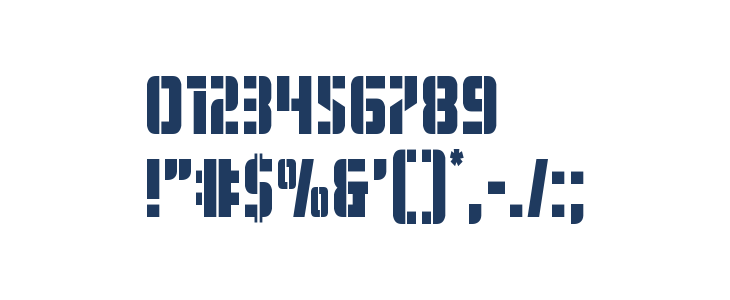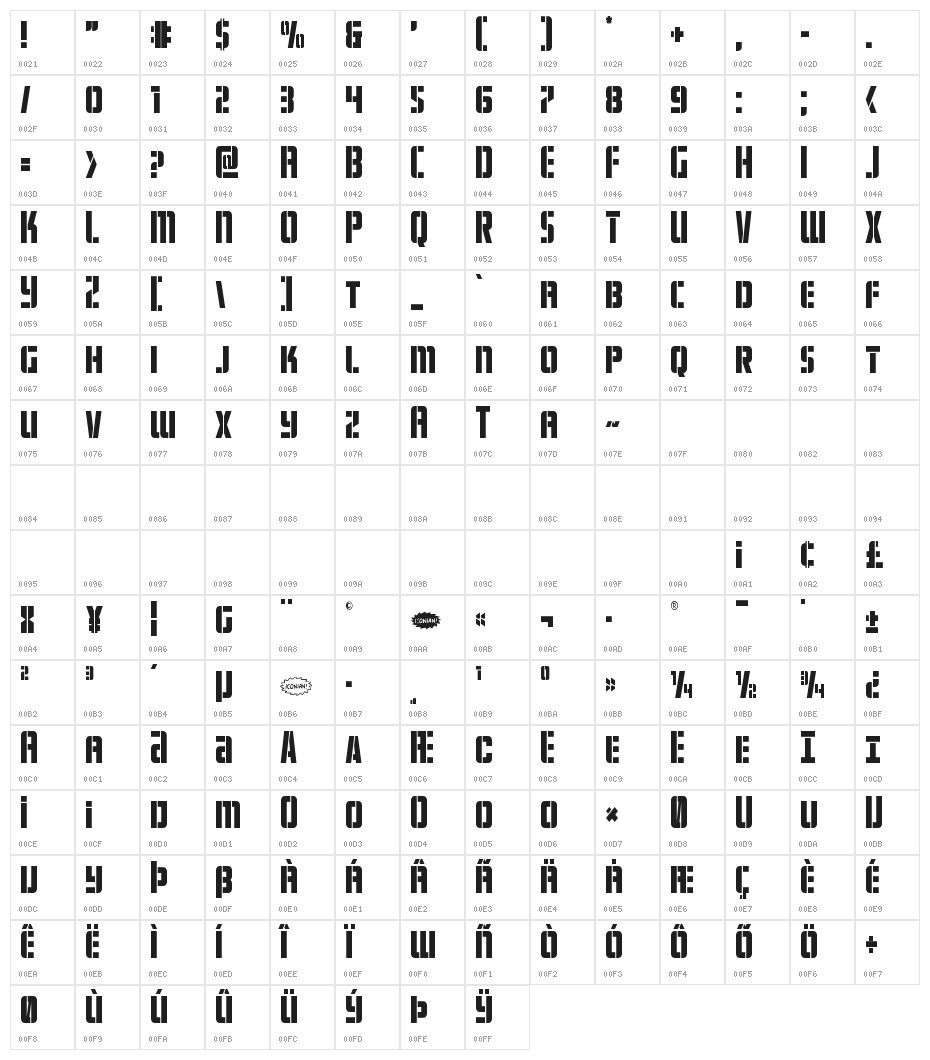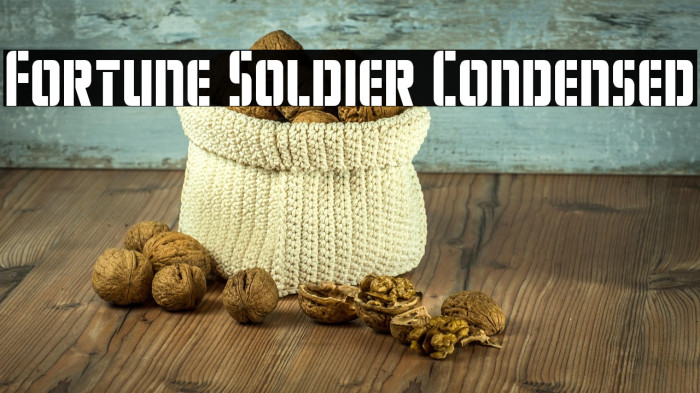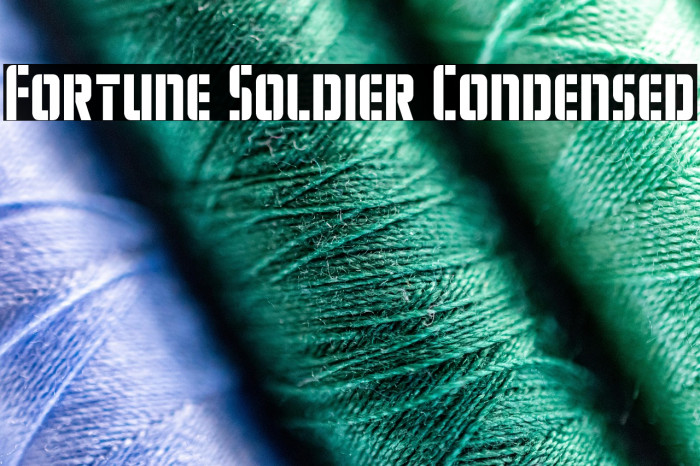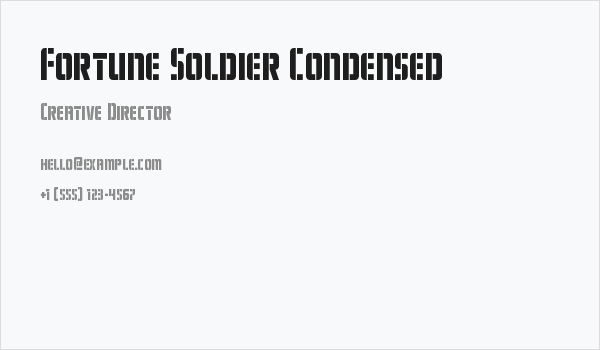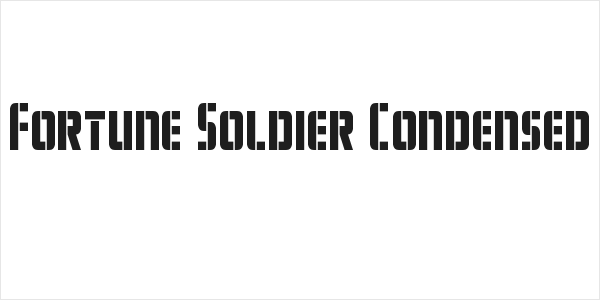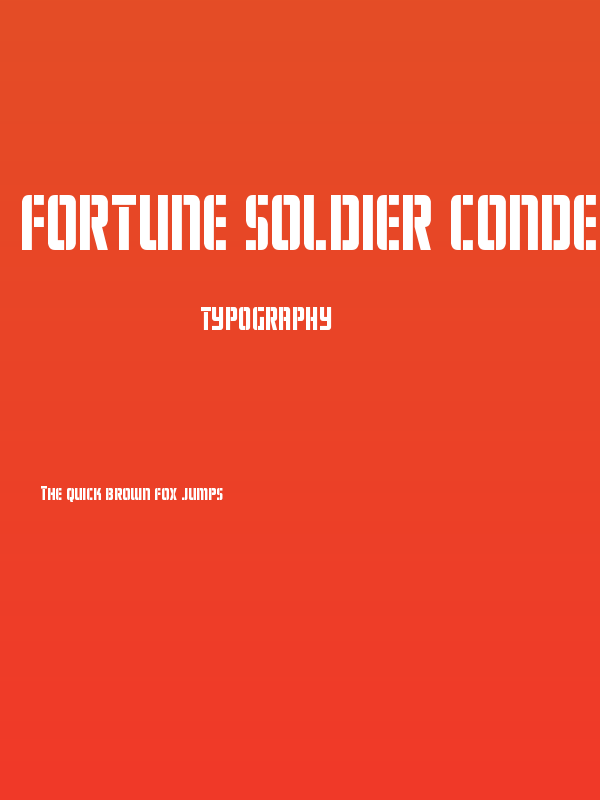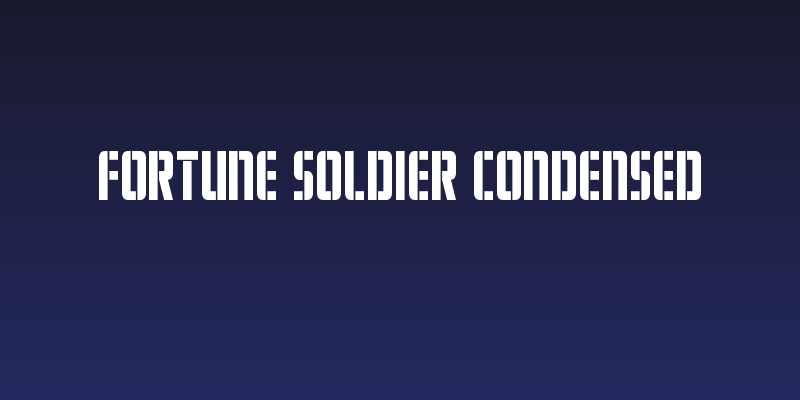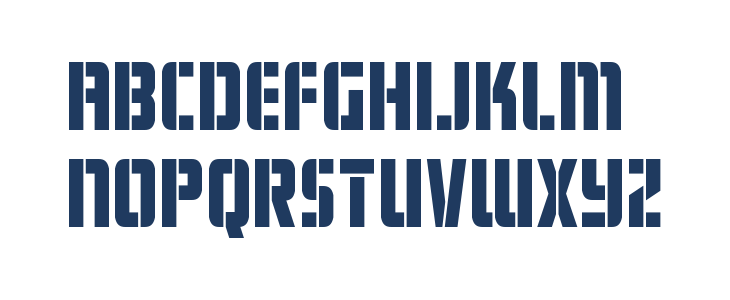
Fortune Soldier Condensed Font
Fortune Soldier Condensed Description
This font features a bold, condensed style with a strong, military-inspired aesthetic. The characters are blocky and geometric, with minimal curves and sharp angles, giving it a robust and commanding presence. The uppercase letters are particularly striking, with uniform height and width, creating a cohesive and structured look. The numerals and special characters maintain this boldness, ensuring consistency across all glyphs. The font's design is reminiscent of stencil patterns, often used in industrial and military contexts, making it ideal for projects that require a sense of authority and strength.
| Proposed Projects | Ideal for military-themed designs, posters, signage, and branding that requires a strong, authoritative presence. |